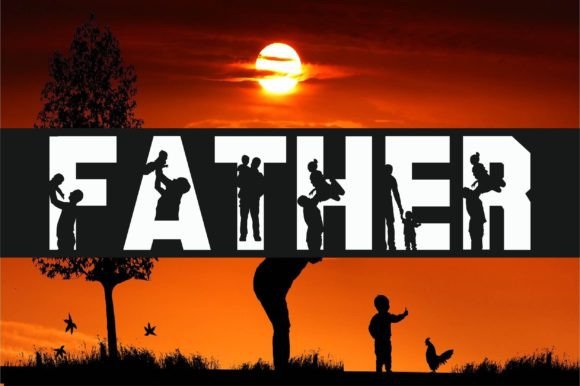
Looking for a font that will set your designs apart? Look no further than Father Font! This cool and original decorative font, part of the display family, was created by MDF specifically for use with Procreate. With its unique and eye-catching design, Father Font is the perfect choice for logotypes, headline fonts, and other branding materials across a wide range of industries.
But that's not all! Father Font's versatility means it's not limited to corporate identity and brand identity projects. It's also perfect for apparel, posters, music and movie promotions, games, magazines, books, comics, cartoons, YouTube videos, Instagram posts, websites, and more. Whether you're creating an eye-catching poster or a visually stunning Instagram post, Father Font is the perfect tool for making your designs stand out.
So why choose Father Font? First, it's the perfect choice for Procreate users who want to take their designs to the next level. Second, its unique design ensures that your branding materials will be distinctive and memorable. And finally, its versatility means you can use it for a wide range of projects, from apparel to social media.